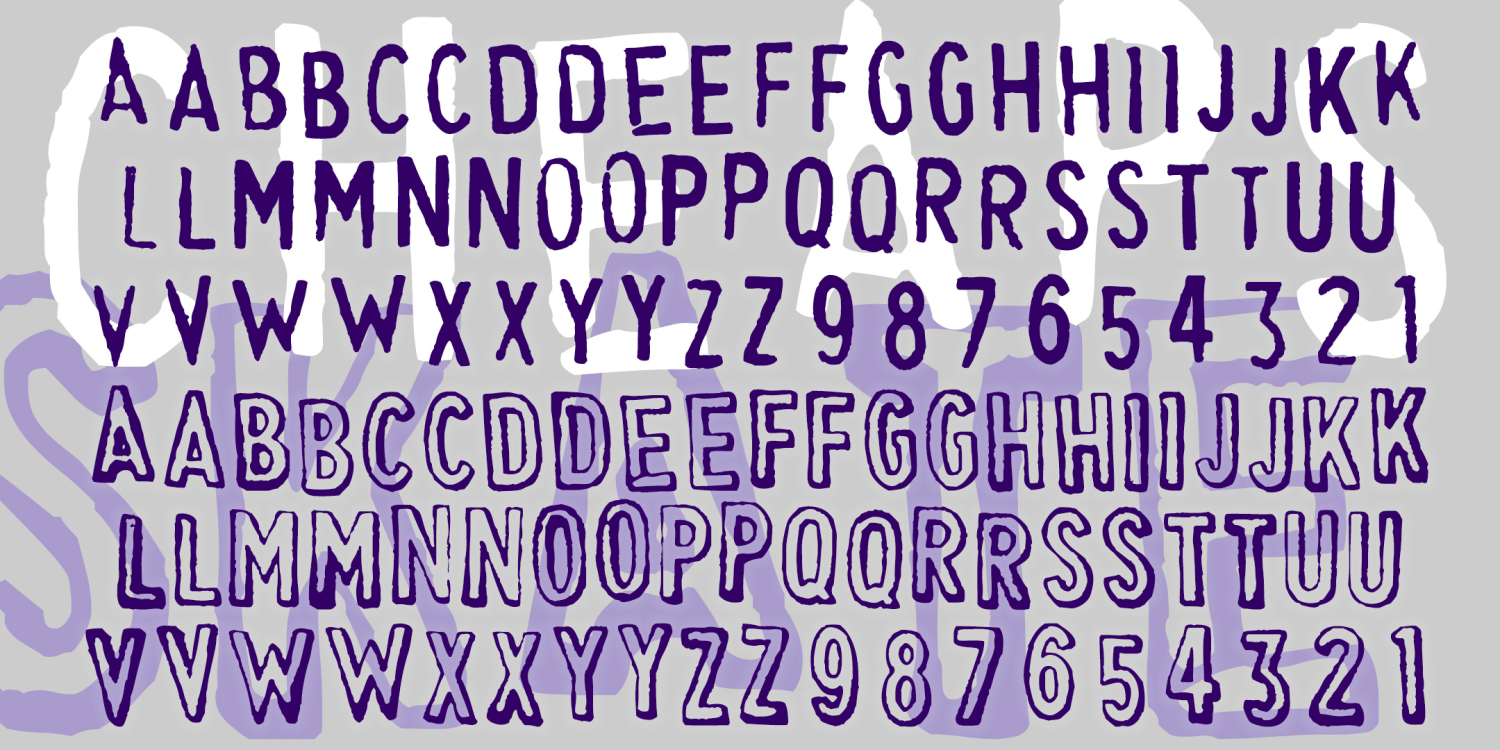
Cheapskate
CHEAPSKATE is based on my first rubber-stamp alphabet. I love the slight shadow effect and the awkward letterforms. The Outline font is the way the original stamps look; the Fill font can be used separately or underlapped to fill in the letters with another color or percentage. There are two of each letter, in the upper- and lowercase positions, so you can get a more random, hand-stamped font.